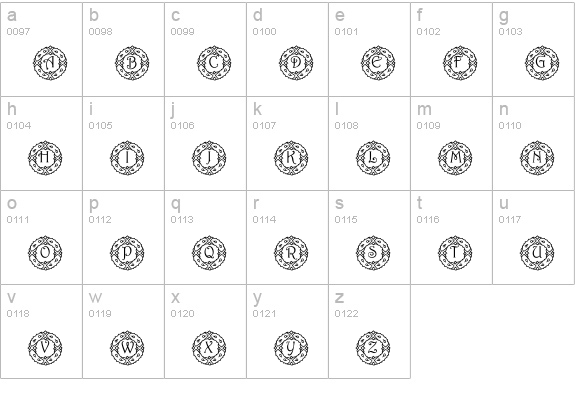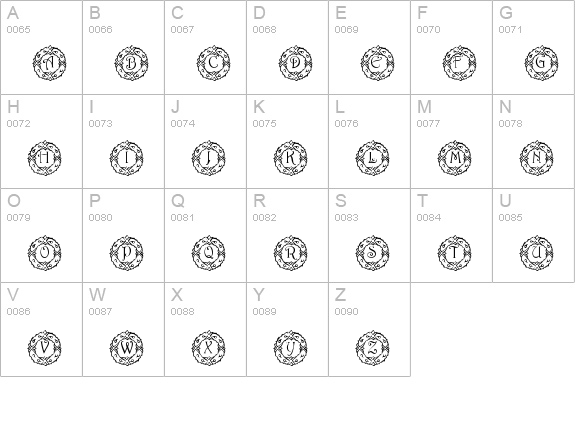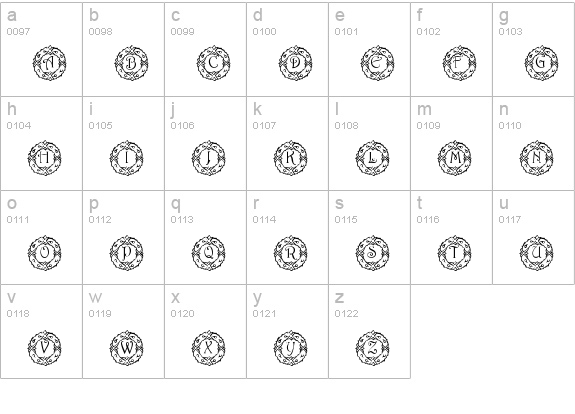
pf_wreath Font Details
Introducing pf_wreath font, a stunning and versatile typeface that will add a touch of elegance and charm to any design project. With its delicate and intricate details, this font captures the essence of a beautifully crafted wreath, making it the perfect choice for invitations, greeting cards, logos, and more. The flowing curves and graceful lines of pf_wreath font create a sense of harmony and balance, while the unique flourishes add a touch of whimsy and personality. Whether you're designing for a wedding, a holiday celebration, or simply want to add a touch of nature-inspired beauty to your work, this font is sure to impress. What's even better is that pf_wreath font is available for free download at FontsMarket.com. That's right, you can easily access and enjoy this incredible font without any cost. It's the perfect opportunity to enhance your creative projects without breaking the bank. So why wait? Download pf_wreath font today and unlock a world of endless possibilities. From eye-catching headlines to elegant script, this font will elevate your designs to new heights. Don't miss out on this amazing offer and start creating stunning artwork that will captivate and inspire. Remember, it's freely available to download at FontsMarket.com, so get your hands on pf_wreath font and let your creativity flourish.